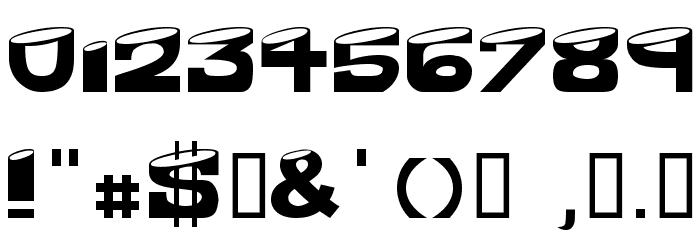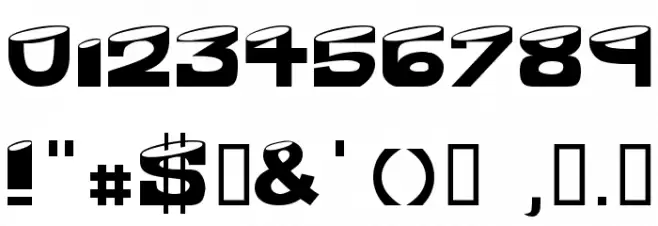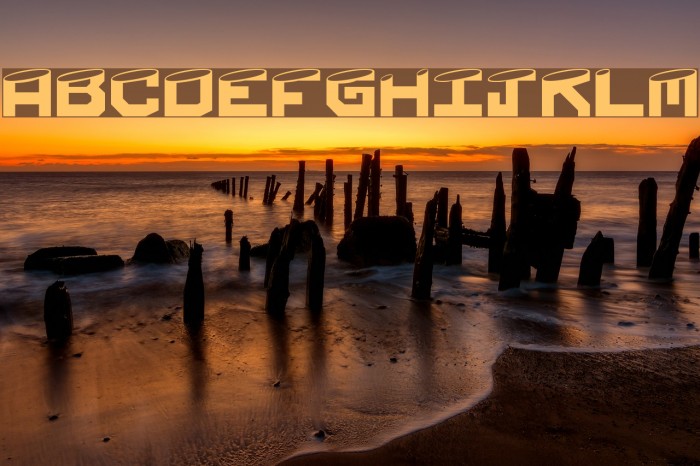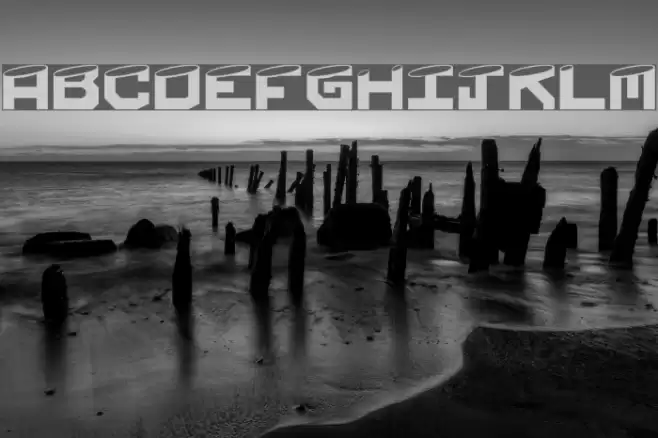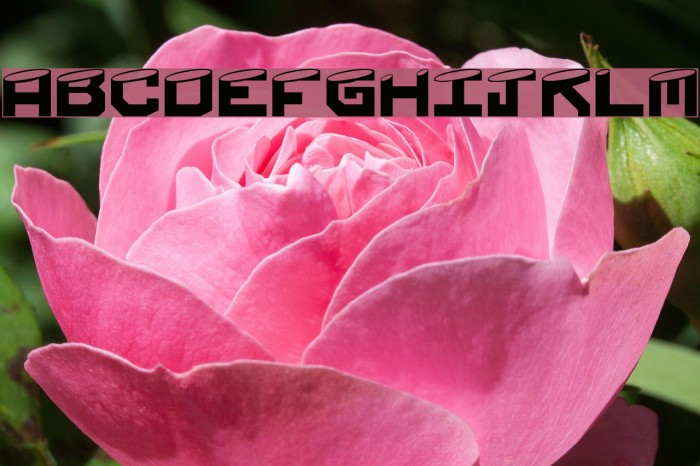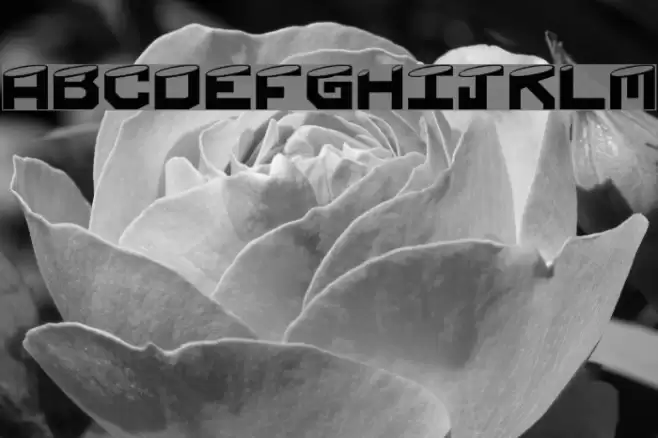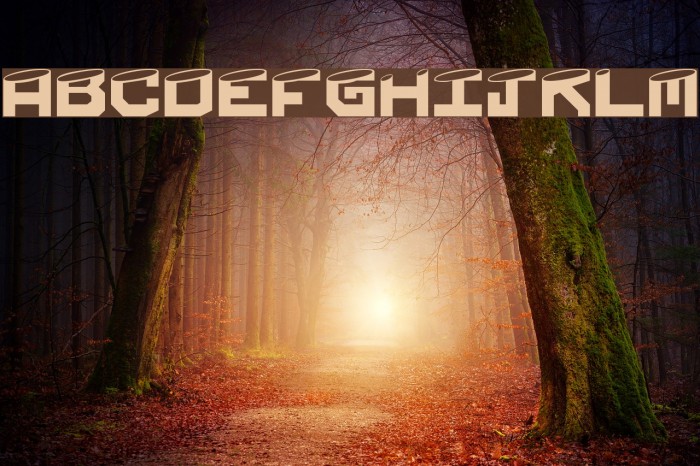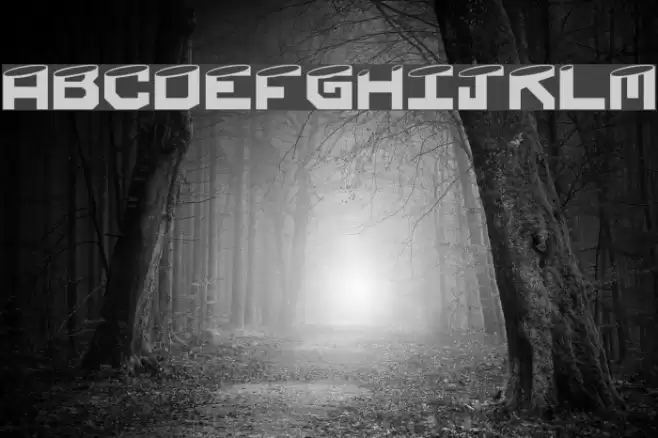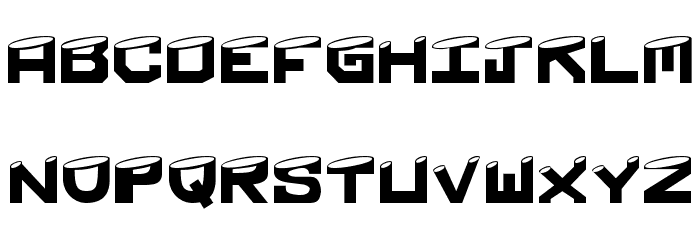
Shaved Font
Shaved Description
This font features a bold, three-dimensional design with a unique cylindrical effect on the top of each character, creating a striking visual impact. The characters are blocky and geometric, with a consistent thickness throughout, giving them a strong and sturdy appearance. The uppercase and lowercase letters maintain a uniform style, while the numerals and special characters complement the overall aesthetic. The font's design is reminiscent of industrial or futuristic themes, making it suitable for projects that require a bold and modern look. The spacing between characters is tight, enhancing the compact and cohesive feel of the text.
| Overall Style | Futuristic |
| Use Case | Logos, Headlines, Posters |
| Proposed Projects | Ideal for futuristic branding, sci-fi posters, video game titles, and industrial-themed designs. |